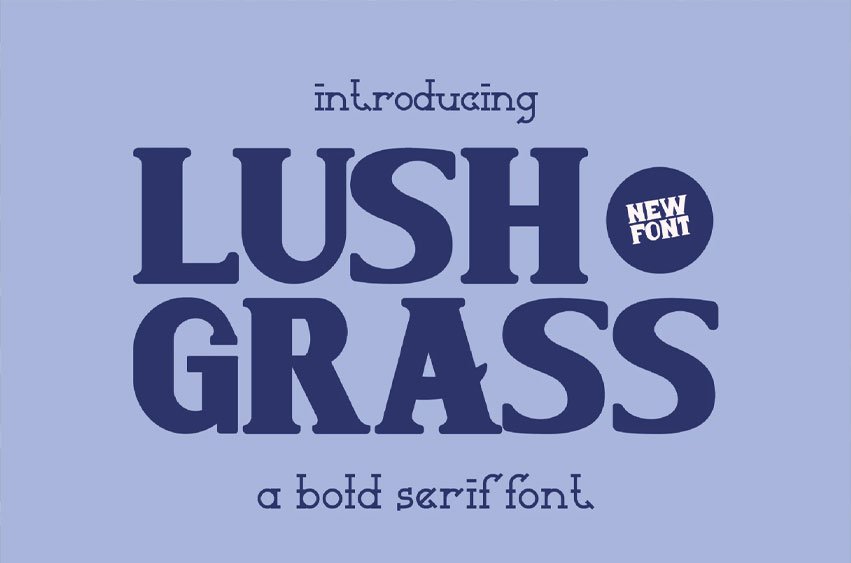
LushGrass Font is a fun and cheerful font inspired by the joy of outdoor play. With its soft, playful shapes and friendly style, it’s perfect for kids’ books, nature-themed projects, school materials, and more.
Lushgrass brings a natural, happy energy to every design, making it feel bright, fun, and full of life!